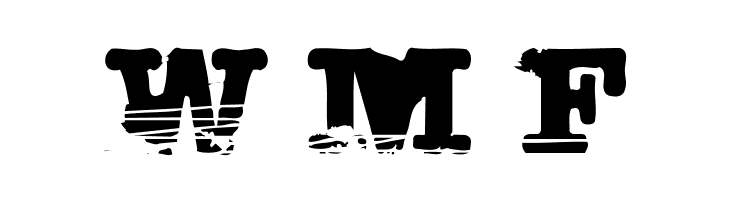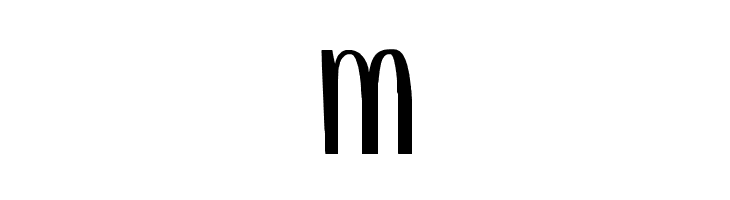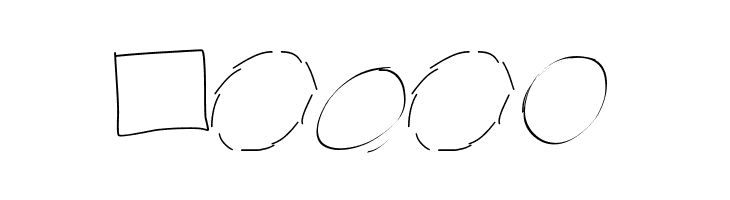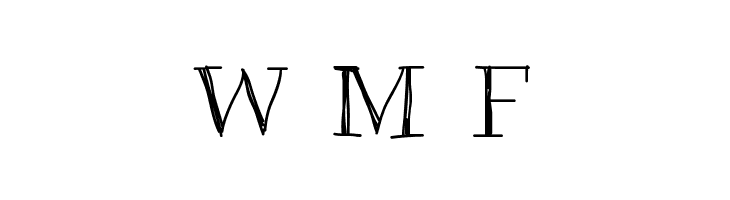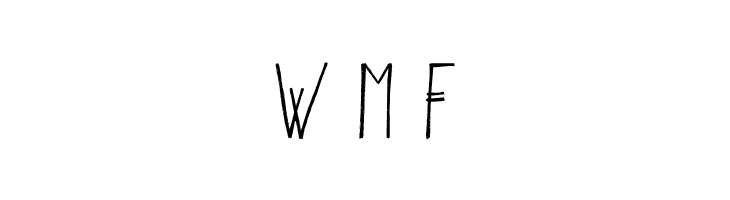
A playful and whimsical script font with curly, looping letterforms.
A distressed, grunge-style font with a textured, aged appearance.
A handcrafted, woodblock-inspired font with intricate line work and a rustic aesthetic.
Hand-drawn geometric shapes with playful, sketchy outlines.
A vintage-inspired font with a handcrafted, whimsical style.
A hand-drawn, vintage-style font with sketch-like, decorative elements.
A hand-drawn, artistic font with tall, narrow characters and a rustic feel.
A playful, hand-drawn font with whimsical, decorative elements.